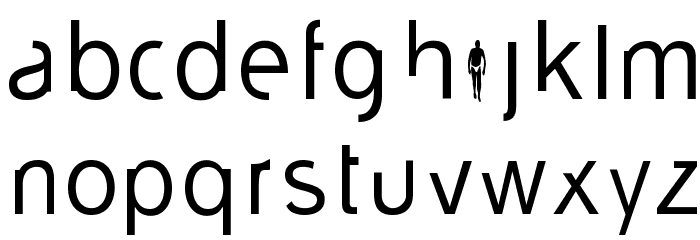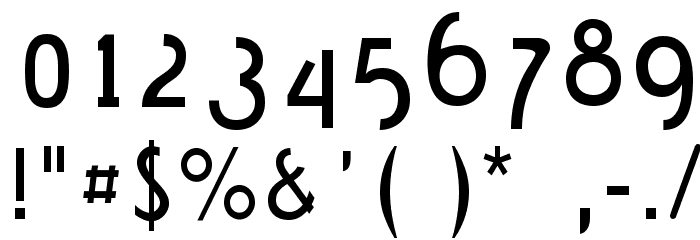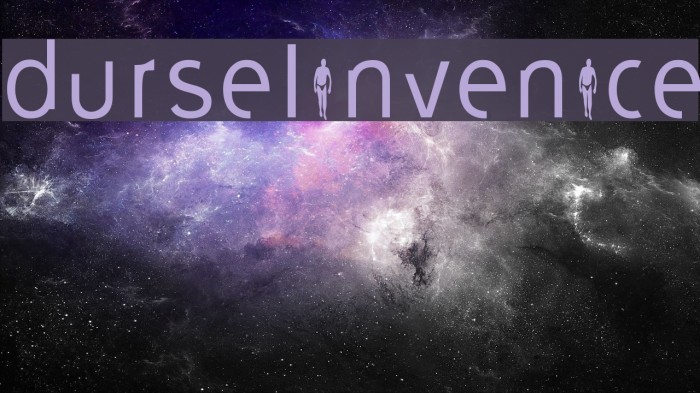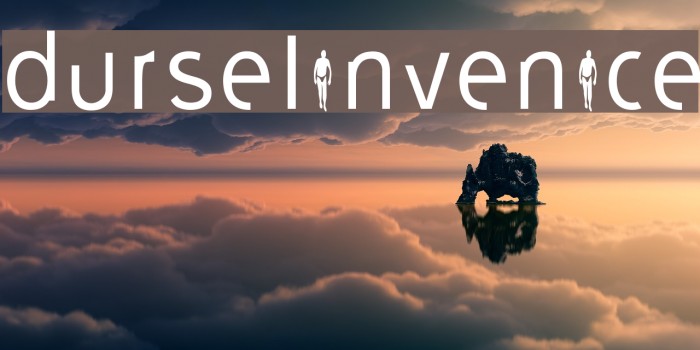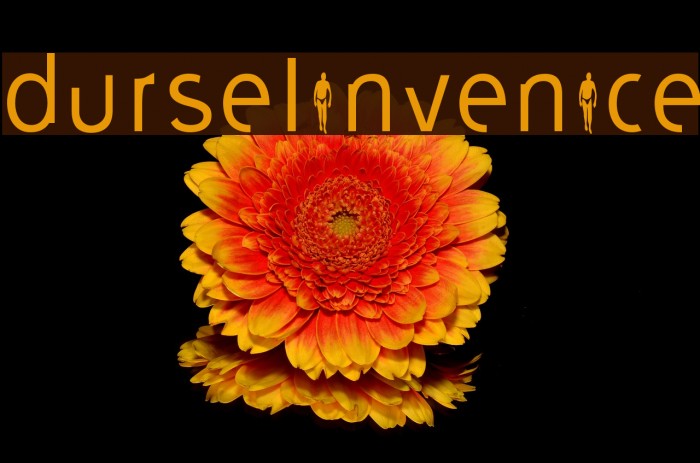
durselinvenice Font
This font features a modern and minimalist design with clean lines and a sans-serif style. It includes a unique element where certain letters incorporate a silhouette of a person, adding a distinctive and playful touch. The characters are evenly spaced, providing a balanced and harmonious appearance. The font maintains a consistent stroke width, offering a uniform and sleek look. Its simplicity and subtle creativity make it suitable for a variety of design projects that require a contemporary and artistic flair.
A modern sans-serif font with clean lines and unique silhouette elements.
- Font: durselinvenice
by nicolasmartin - Weight: Regular
- Proposed Projects: Ideal for creative branding, modern advertising, artistic posters, and innovative web design.